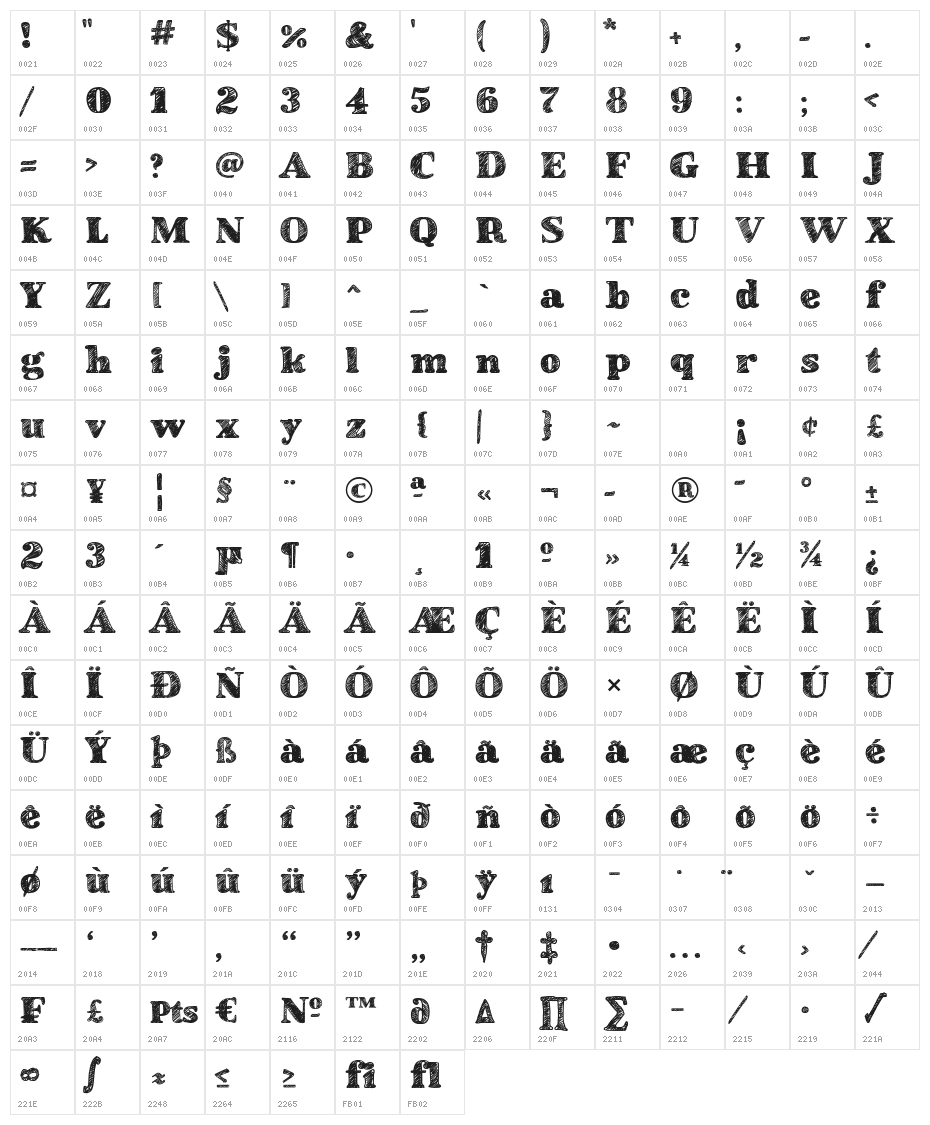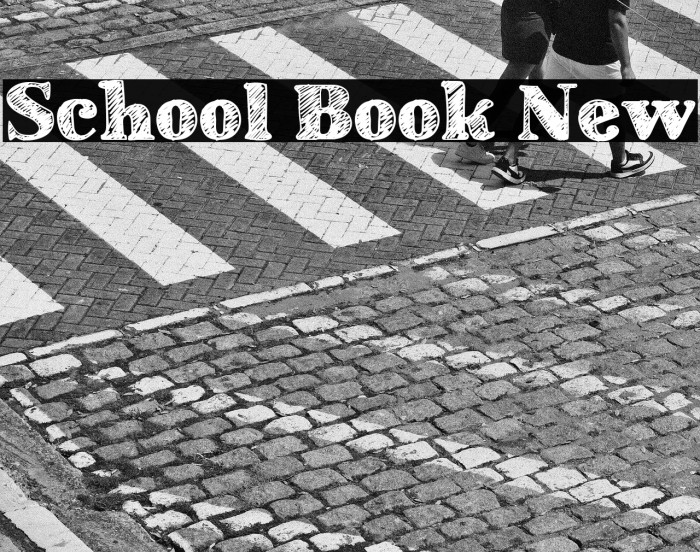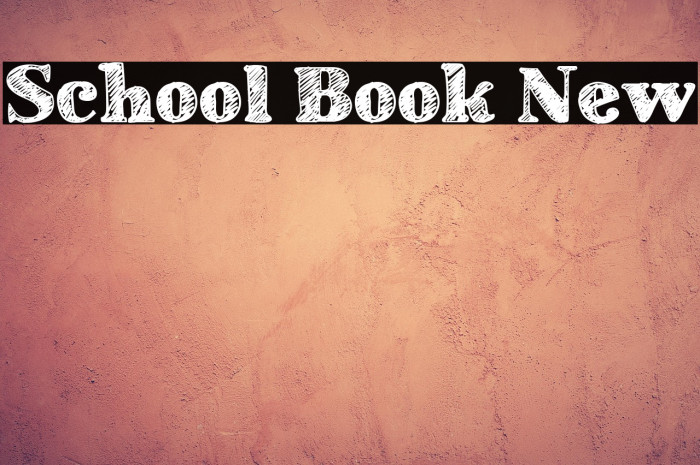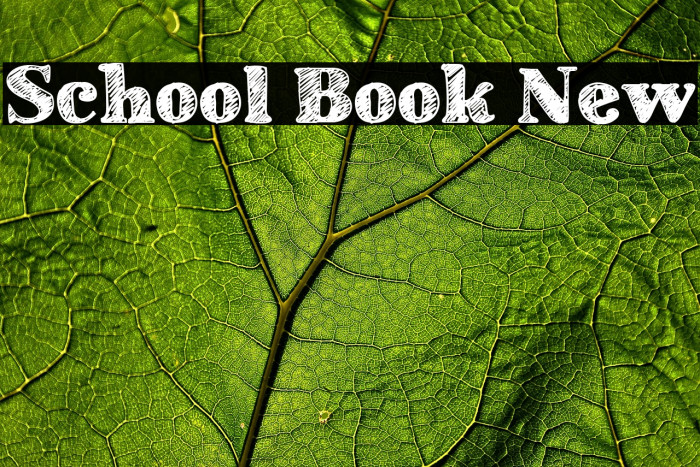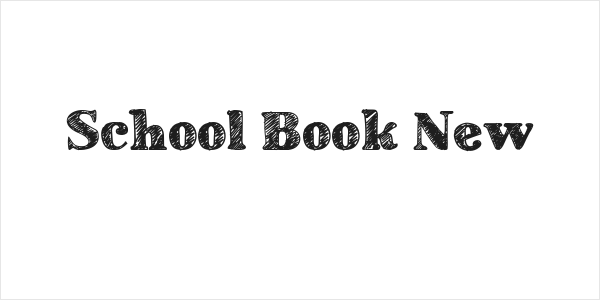
School Book New Font
School Book New Description
This font features a bold, textured style with a hand-drawn appearance, giving it a unique and playful character. The letters are thick and have a consistent stroke width, with a slightly rough, sketch-like texture that adds depth and interest. The uppercase and lowercase letters are well-proportioned, maintaining a cohesive look across the alphabet. Numbers and special characters follow the same design, ensuring uniformity. This font's distinctive style makes it stand out, suitable for projects that require a creative and artistic touch.
| Overall Style | Playful, Artistic |
| Proposed Projects | Ideal for posters, children's books, creative branding, and artistic projects. |